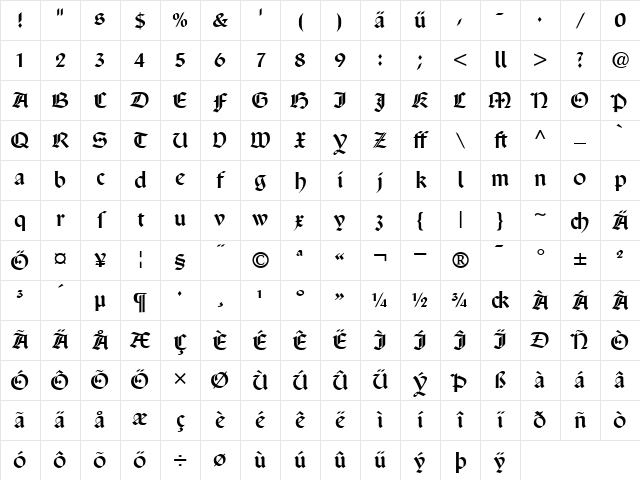
SanMarcoDfr Roman
Design Context for SanMarcoDfr
SanMarcoDfr is a composed and adaptable typeface that performs quietly and consistently across a wide range of design contexts.
Pro Tip: Use SanMarcoDfr in both headline and body roles to test its range before committing to a single application.